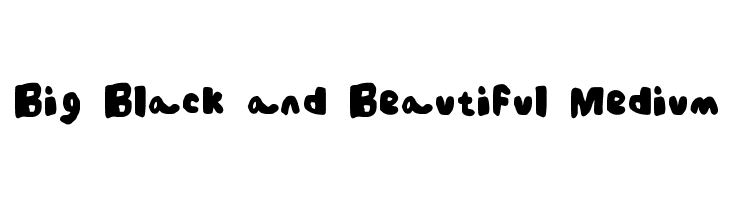
A playful, comic-inspired font with rounded edges and a bold, condensed style.
A playful, bold font with rounded edges and a modern, casual style.
A playful, handwritten font with smooth, rounded strokes and a dynamic feel.
A bold, playful font with rounded, bubbly letters and a lively style.